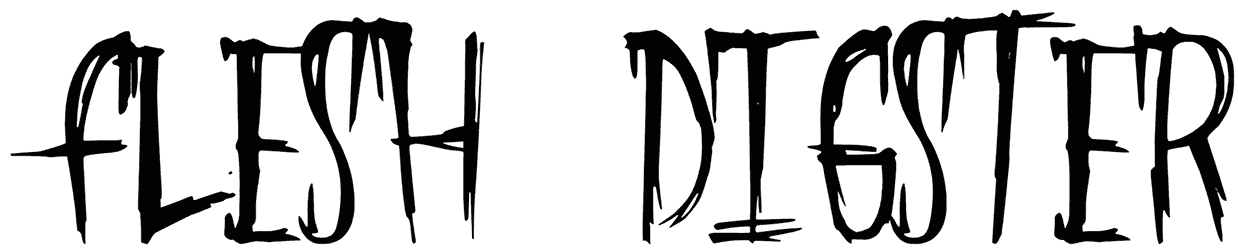
Flesh Digster Font
Flesh Digster is designed in anticipation of the next terrifying moment that will jump out at you. This horror font has a vivid look that can appear on the page and help convey the scary concept.
With its terrifying appearance, this emo font can help to intensify the sense of fear in posters and crime films. So even though it doesn’t include lowercase letters, it can still convey the suspense and darkness of a creepy moment in a novel or on screen.